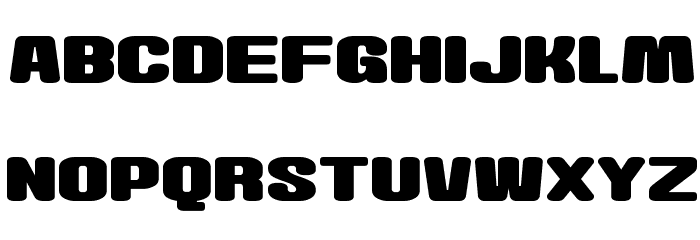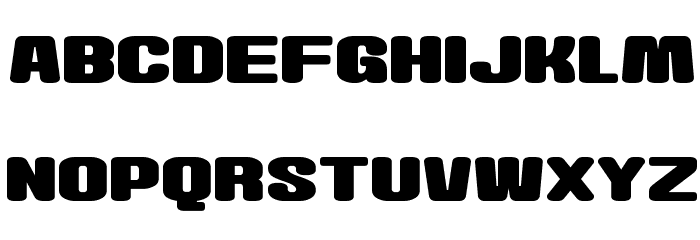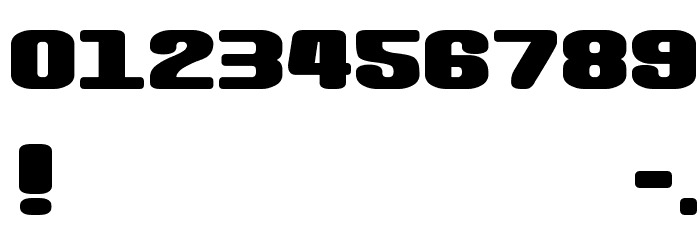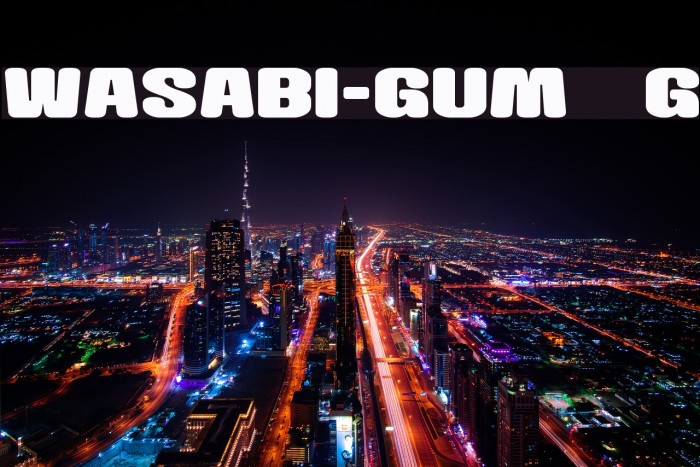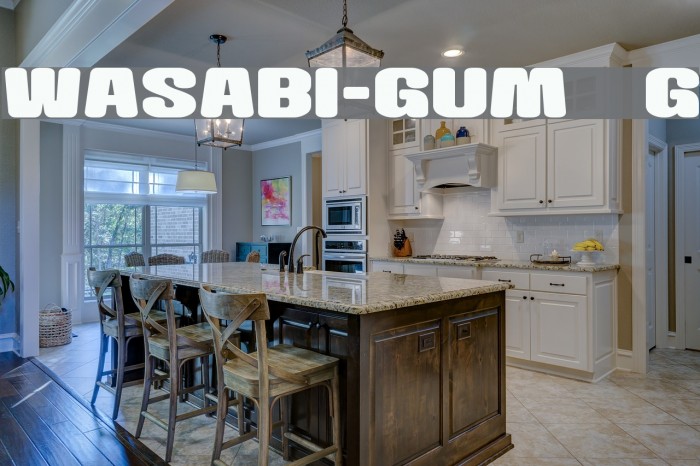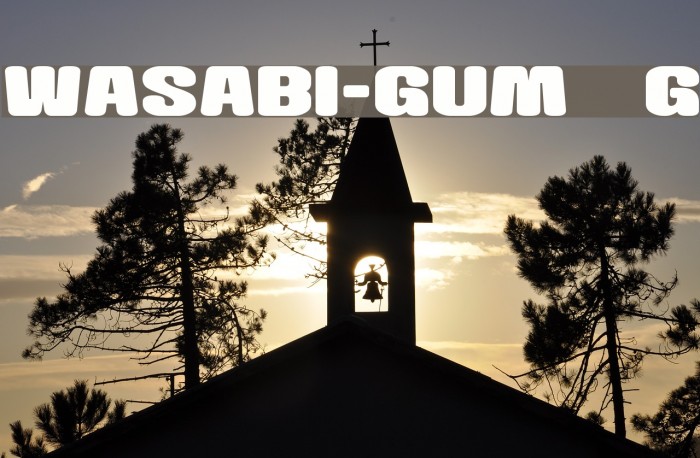
Wasabi-Gum__G Font
This font features a bold and playful design with rounded edges and a strong presence. The characters are uniformly thick, giving it a robust and impactful look. The uppercase and lowercase letters maintain a consistent style, with a slight emphasis on curves that add a friendly and approachable feel. The numbers are equally bold, ensuring readability and consistency across different uses. The special characters, including punctuation marks, are designed to match the overall aesthetic, making them suitable for various design needs. This font is ideal for projects that require a fun and energetic vibe.
A bold, playful font with rounded edges and a strong, impactful presence.